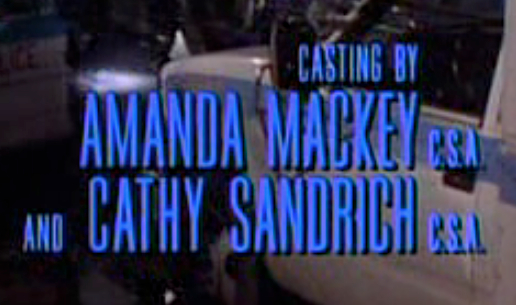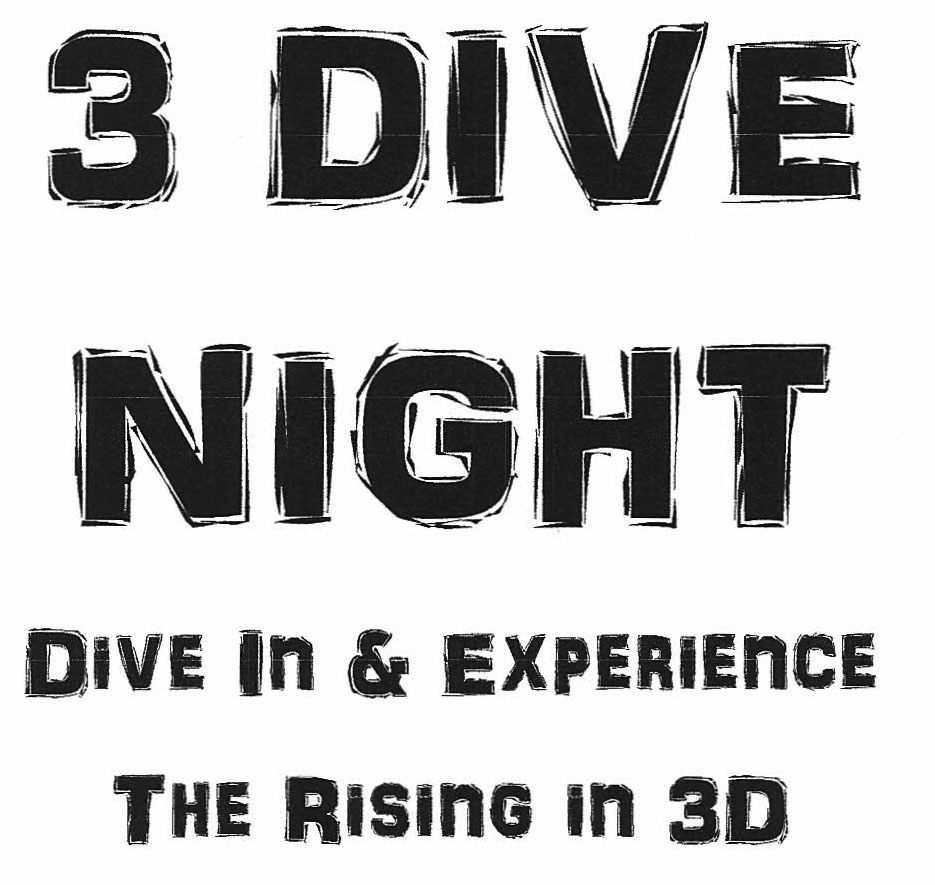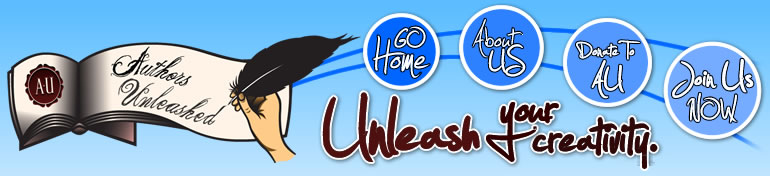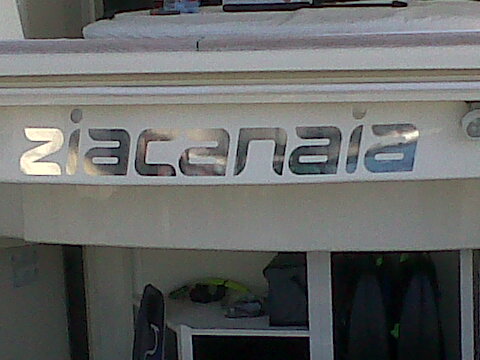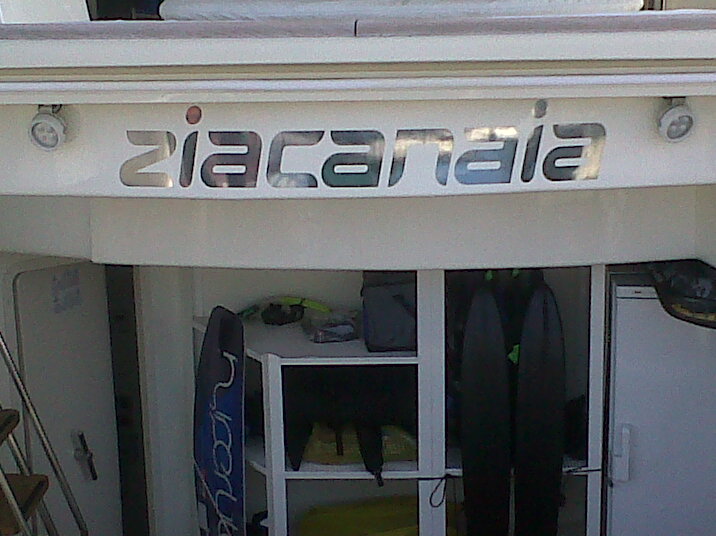
Looking for some identification on the attached fonts.
Can anyone help me out with this font? It's from the movie trailer for "The American"
I thought it was 'Proxima Nova Bold', as the G is spot on, but the M appears to be wrong.
Just curious if anyone has any suggestions.
Alright Sans Bold? Add a couple of points of stroke in illustrator to make it fatter and you're pretty close I would guess.
What's the font on the Mid/Late 2007 MBP under the screen? How about the Early 2008 one? (They ARE different).
(I'd guess Myriad...?)
What font is this?
Anyone know what font this is?
Can anyone tell me what font this is?
Not off the top of my head, but in cases like this, sometimes the best thing is to call the organization that is using it and simply ask them (assuming your time has value and you get no joy from doing research). Or prepare to spend hours looking through font libraries online. Maybe you'll get lucky and somebody will know.
Does anyone know what type face is used here in the photo? Image attached
Can anyone identify this font?
I have no clue what this would be, anyone have a clue?
The image is attached.